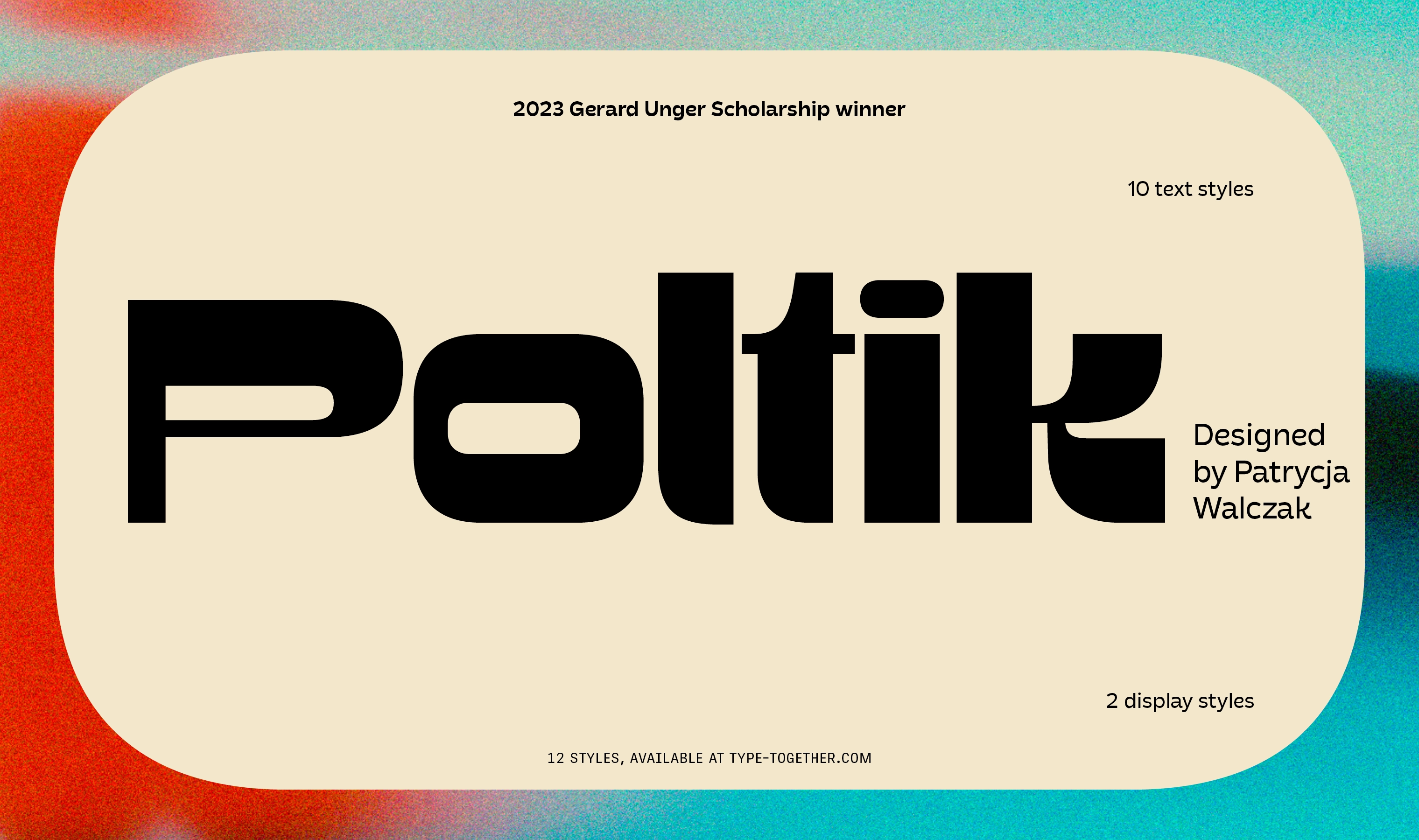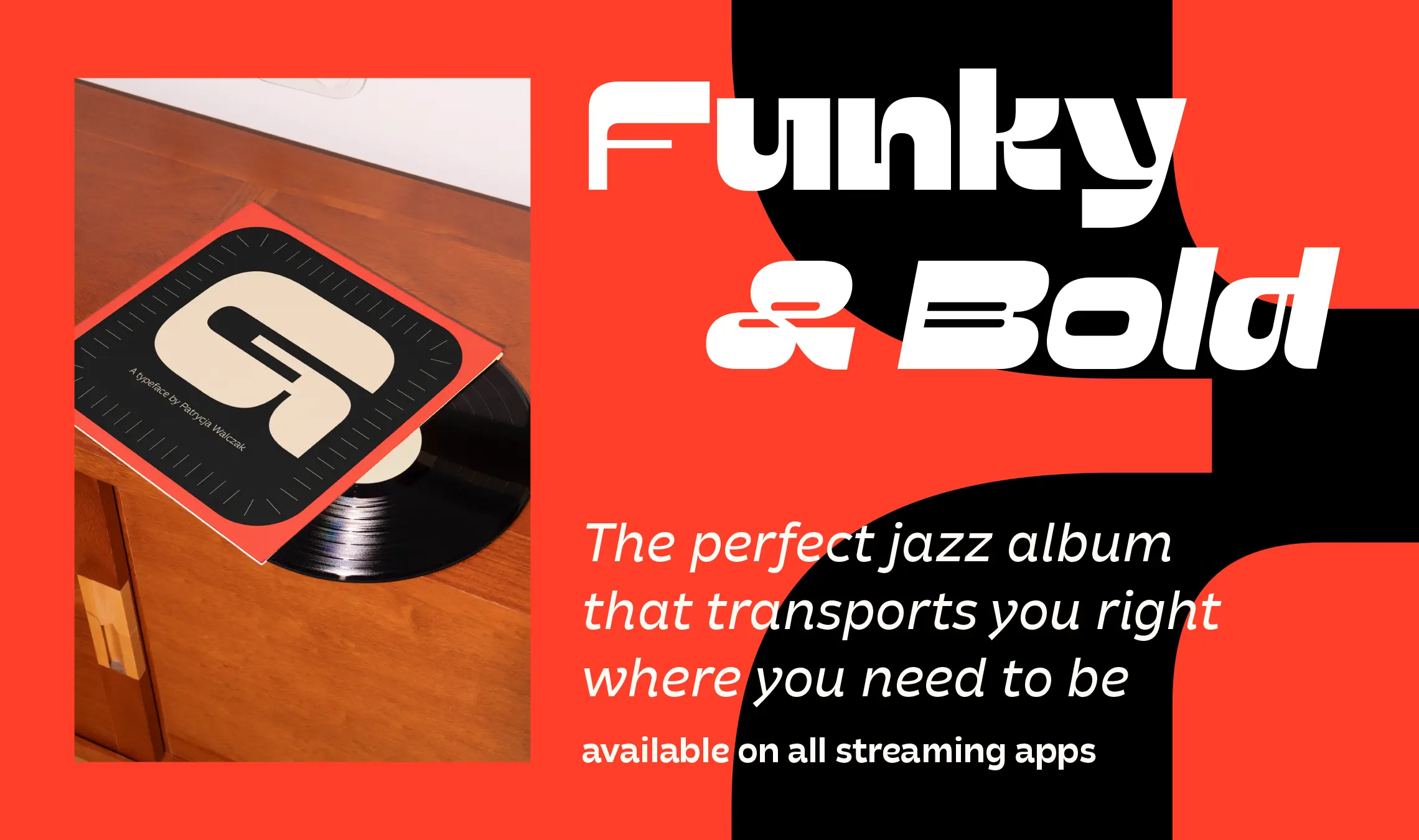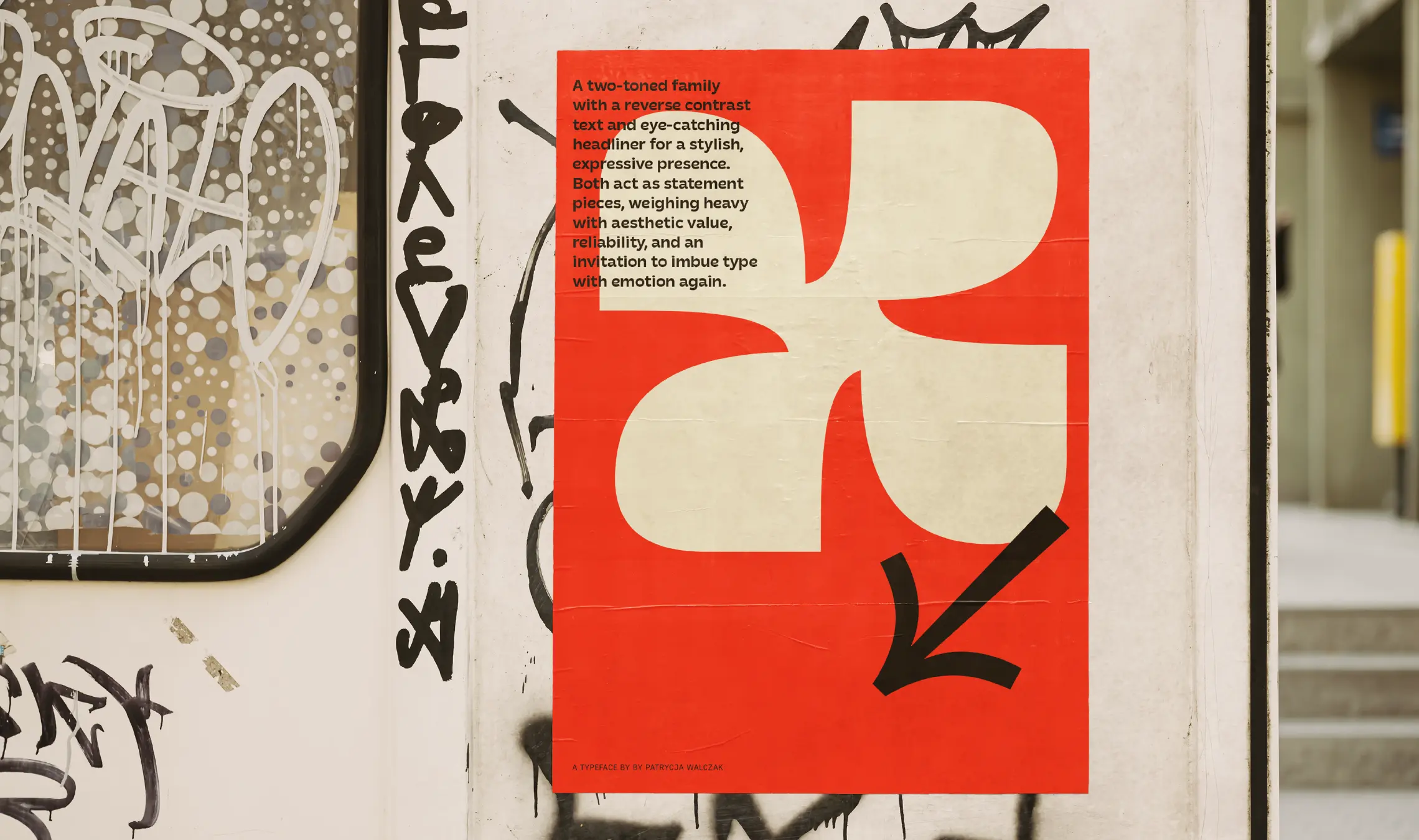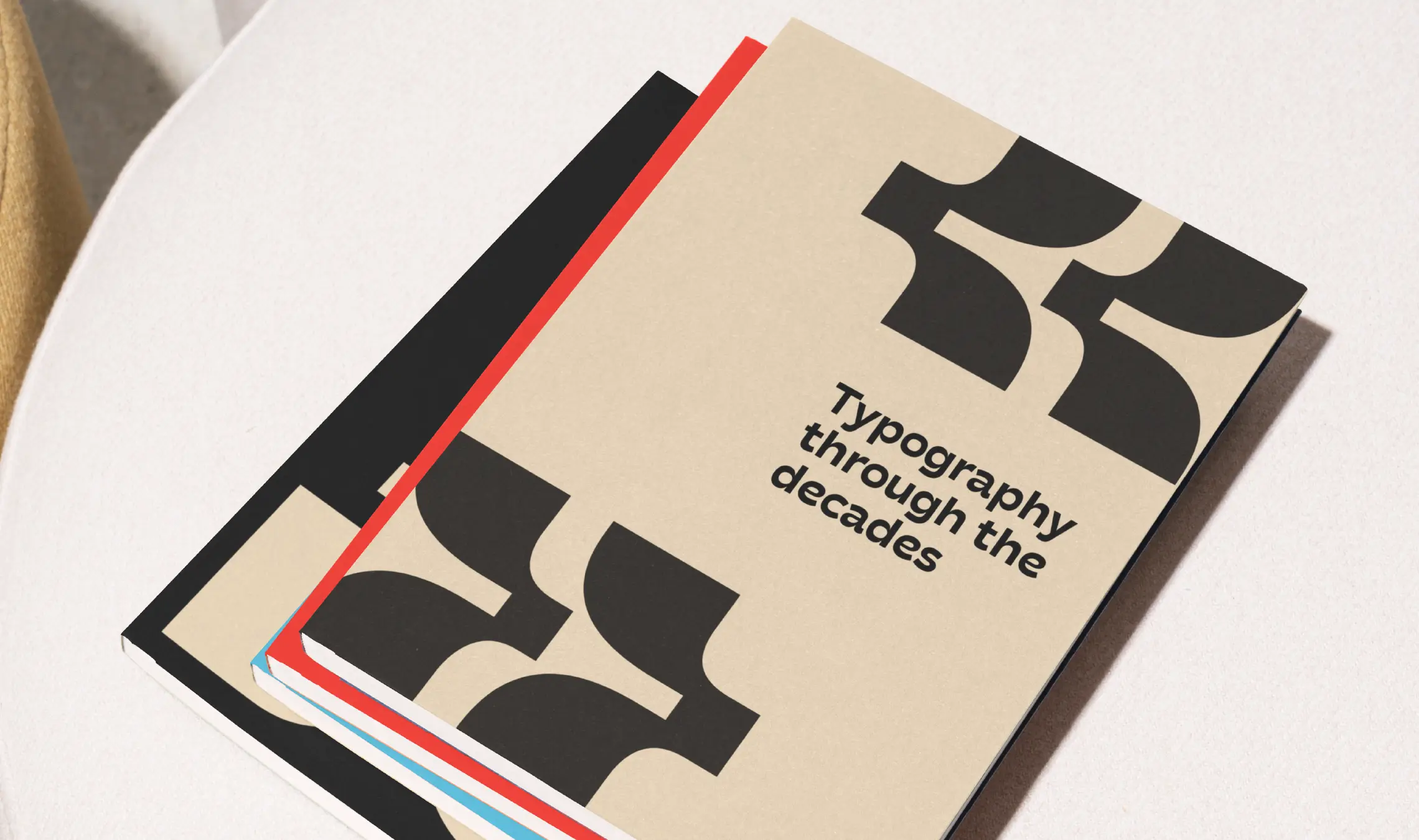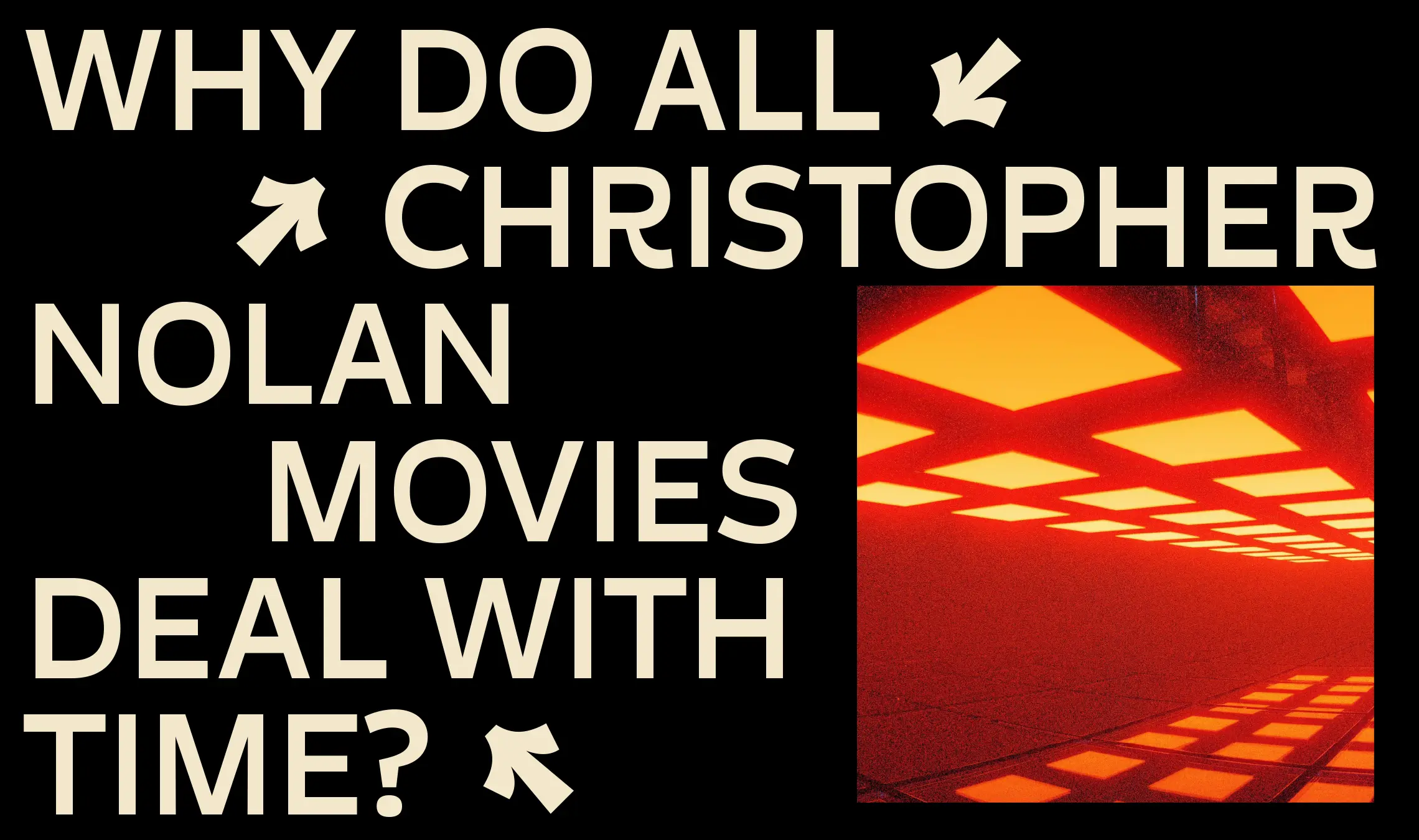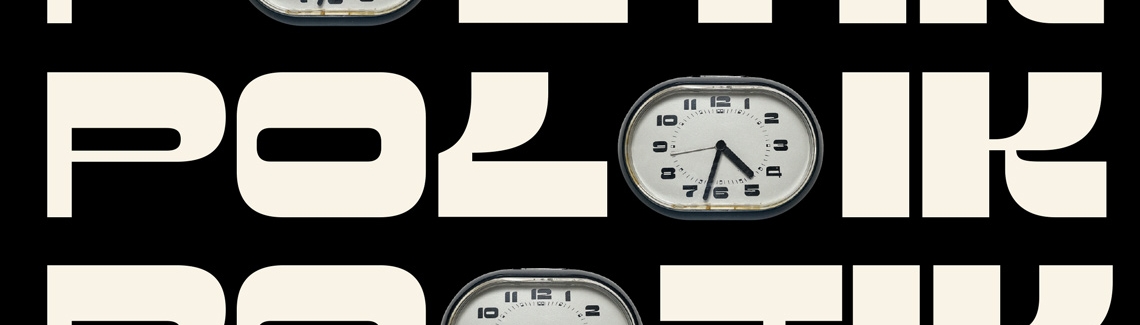
Poltik new release
Patrycja Walczak’s Poltik family has just been released and we’re excited to see its novel look put to eye-catching use.
We are proud to announce Patrycja Walczak, the 2023 Gerard Unger Scholarship winner, has released Poltik as her first family, and it has a lot to offer.
Poltik is a two-toned family with a reverse contrast text and eye-catching headliner for a stylish, expressive presence. Both act as statement pieces, weighing heavy with aesthetic value, reliability, and an invitation to imbue type with emotion again.
Poltik is packed with two display styles, ten text styles (five upright and five italic), full Latin support covering over 200 languages, some fun ornaments (arrows, circled numerals, shapes, and manicules), and is also available as two variable fonts.
Cheeky, funky, and reliable on any screen or page, Poltik can cover the spectrum for digital and print needs. It’s just waiting for your next project to prove its worth, so try it on our website tester and grab the whole family now!